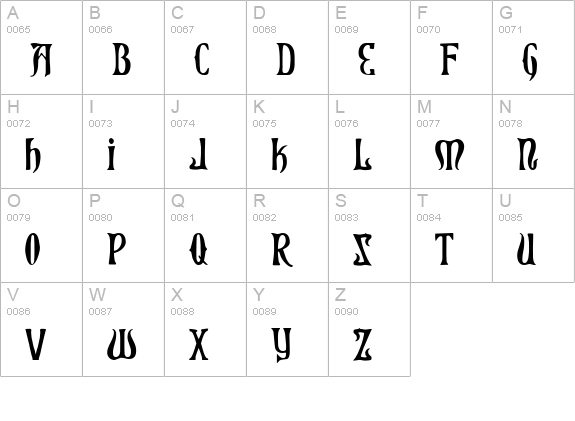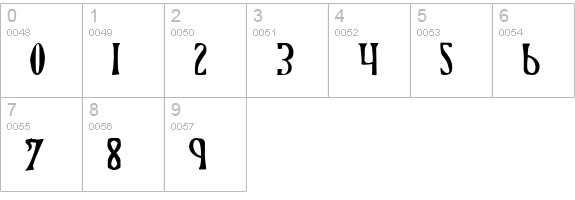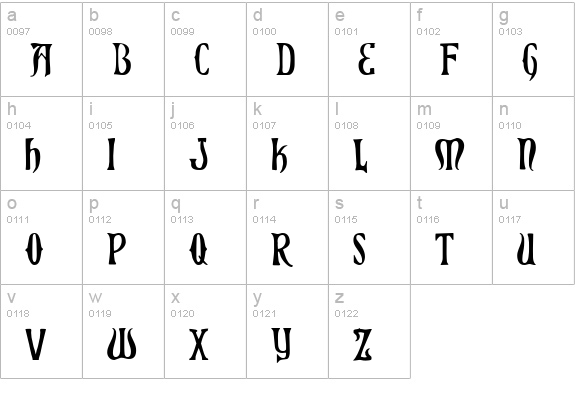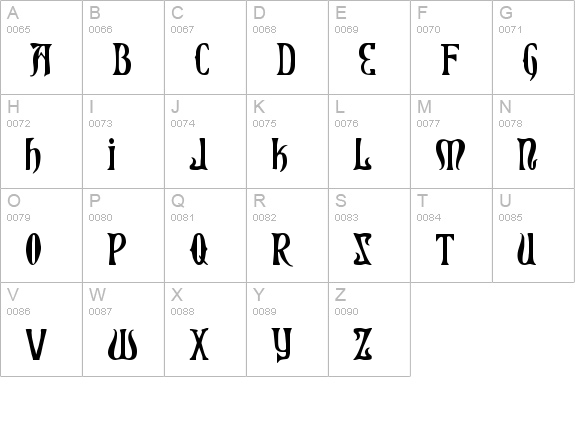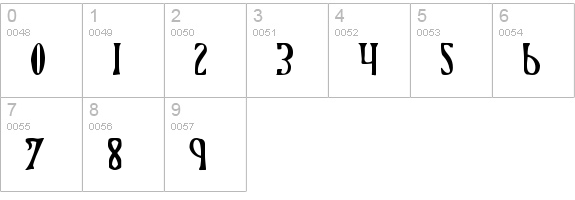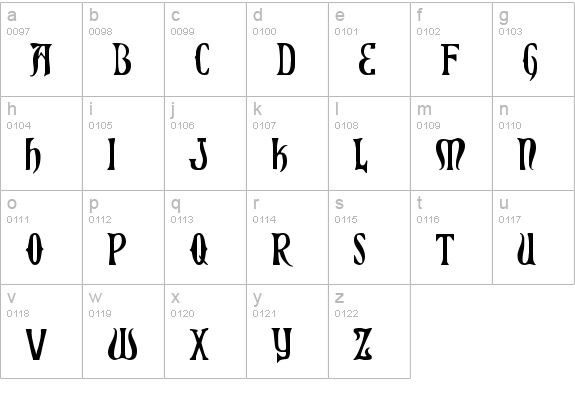
Xiphos is a stylish and modern font that exudes sophistication and elegance. Its sleek lines and clean design make it perfect for a wide range of projects, from branding to editorial design. This versatile typeface strikes the perfect balance between professionalism and creativity, making it a valuable addition to any designer's toolkit. What sets Xiphos apart is not only its aesthetic appeal but also its accessibility. This high-quality font is available for free download at FontsMarket.com, allowing designers of all levels to access its premium features without any cost. Whether you are working on a personal project or a client commission, Xiphos offers a professional and polished look that will elevate your design work to new heights. With its timeless design and effortless sophistication, Xiphos is a must-have font for anyone looking to make a bold statement with their typography. Download it today for free at FontsMarket.com and unleash your creativity with this stunning typeface.